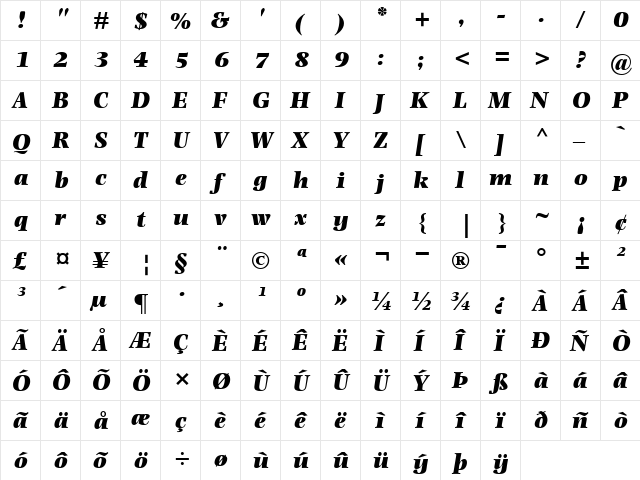
PhotinaMT-UltraBold Ultra BoldItalic
Design Context for PhotinaMT-UltraBold Typeface
PhotinaMT-UltraBold offers clean, dependable letterforms without strong stylistic allegiance, making it a practical choice for designers who need flexibility. The slanted form adds forward momentum and visual energy. The heavy weight commands attention and anchors typographic hierarchies.
Pro Tip: Use PhotinaMT-UltraBold for emphasis, pull quotes, and subheadings where its slanted energy can add rhythm to the layout.